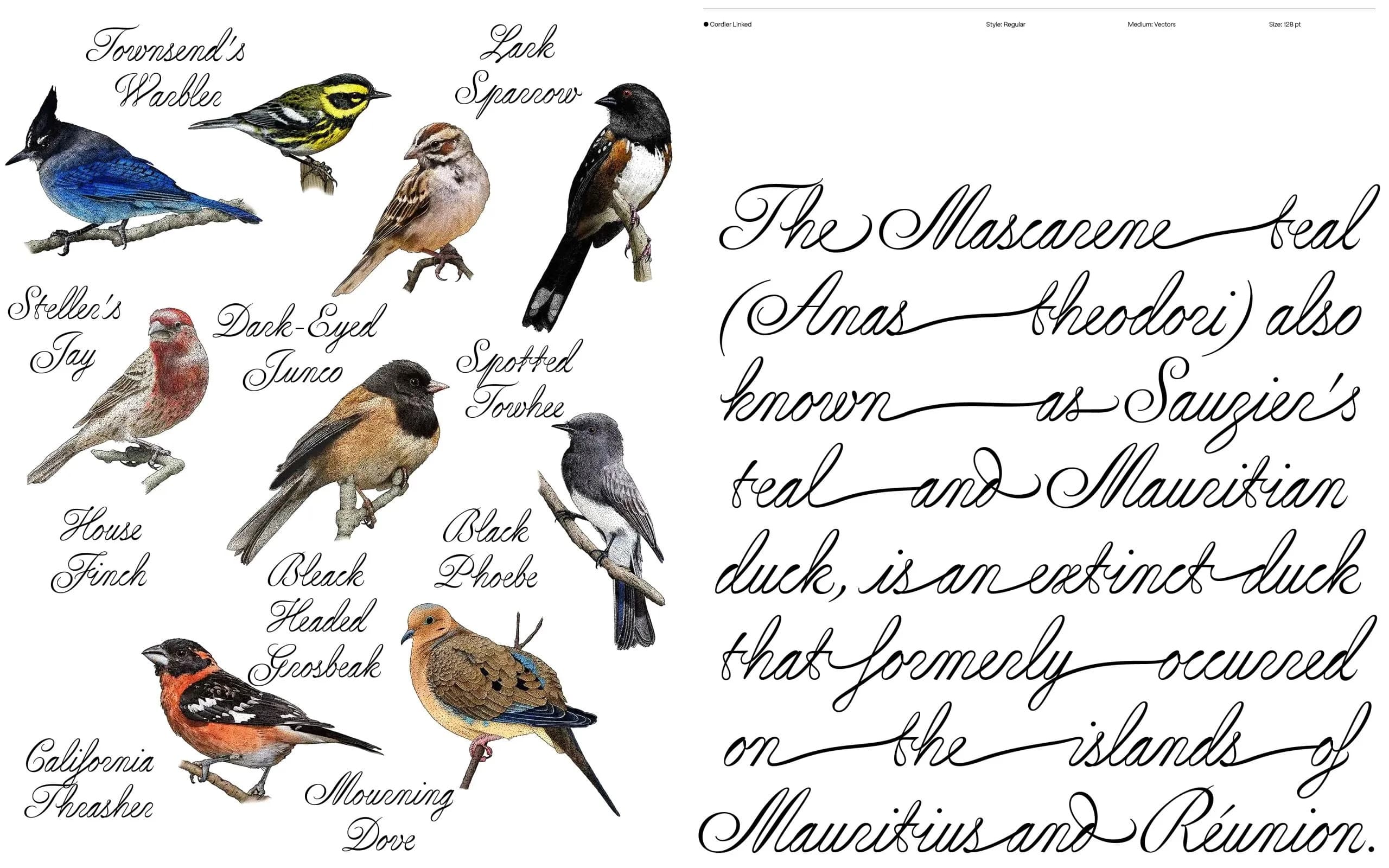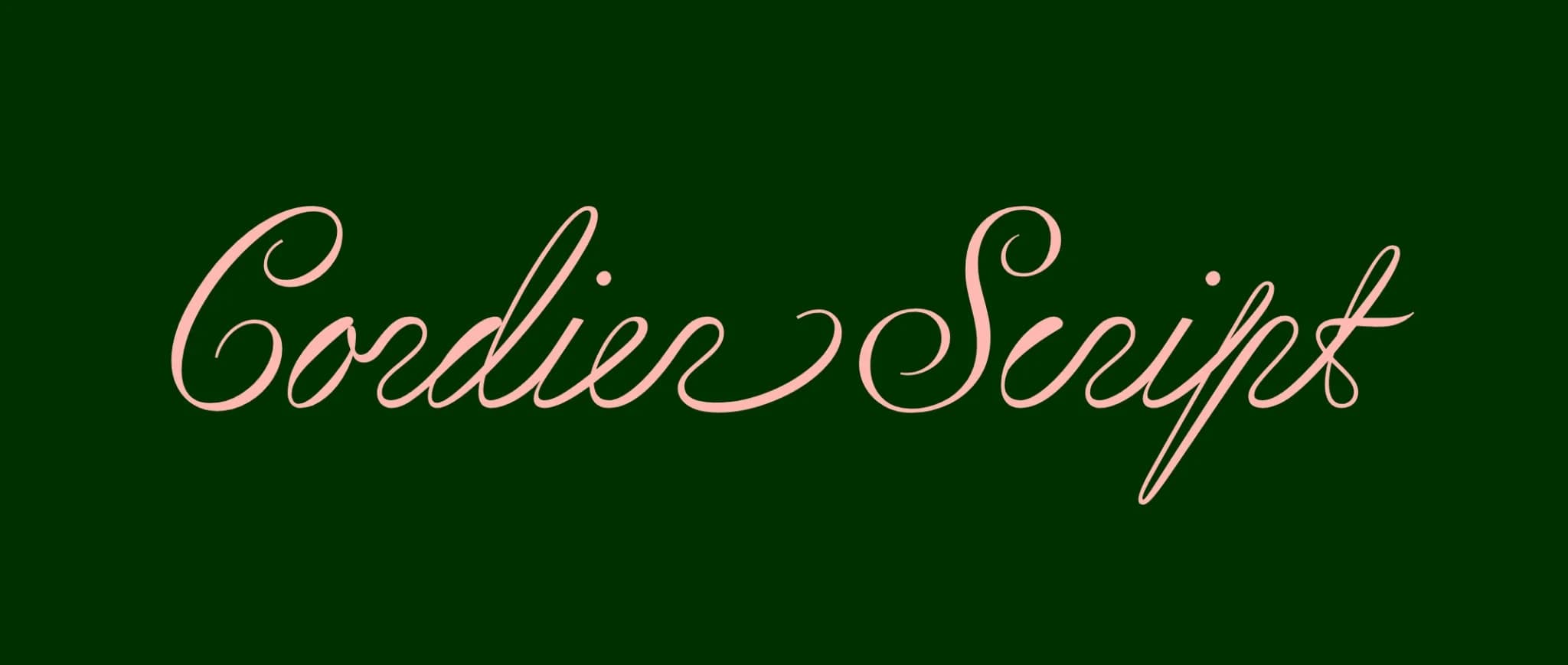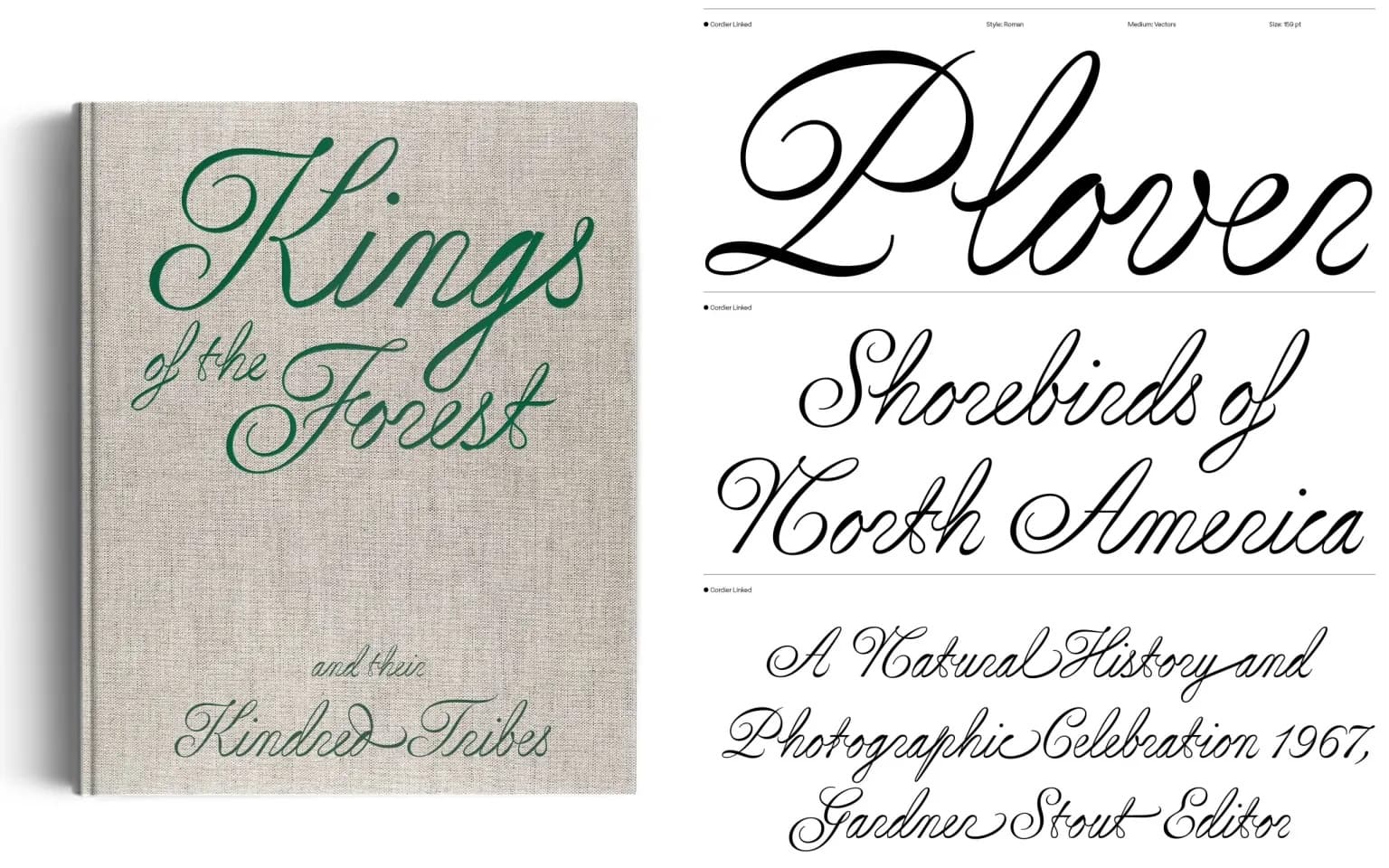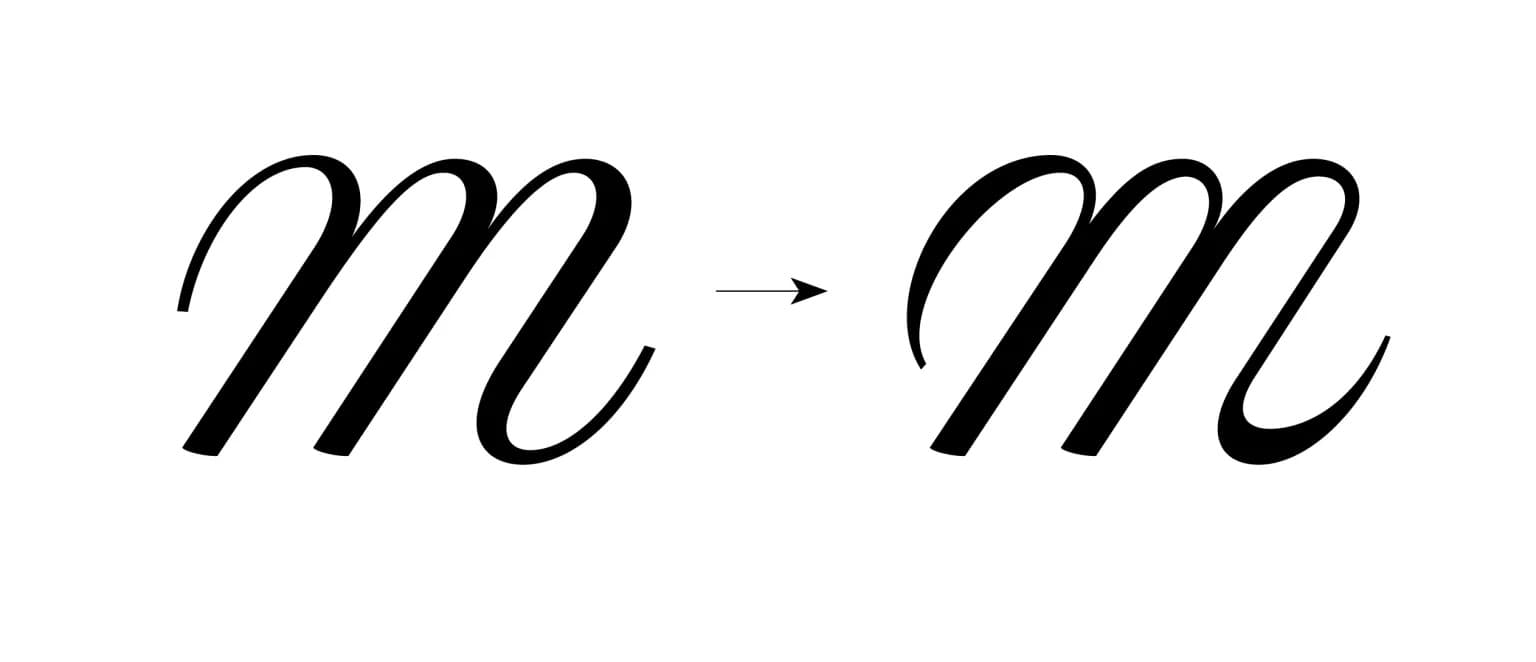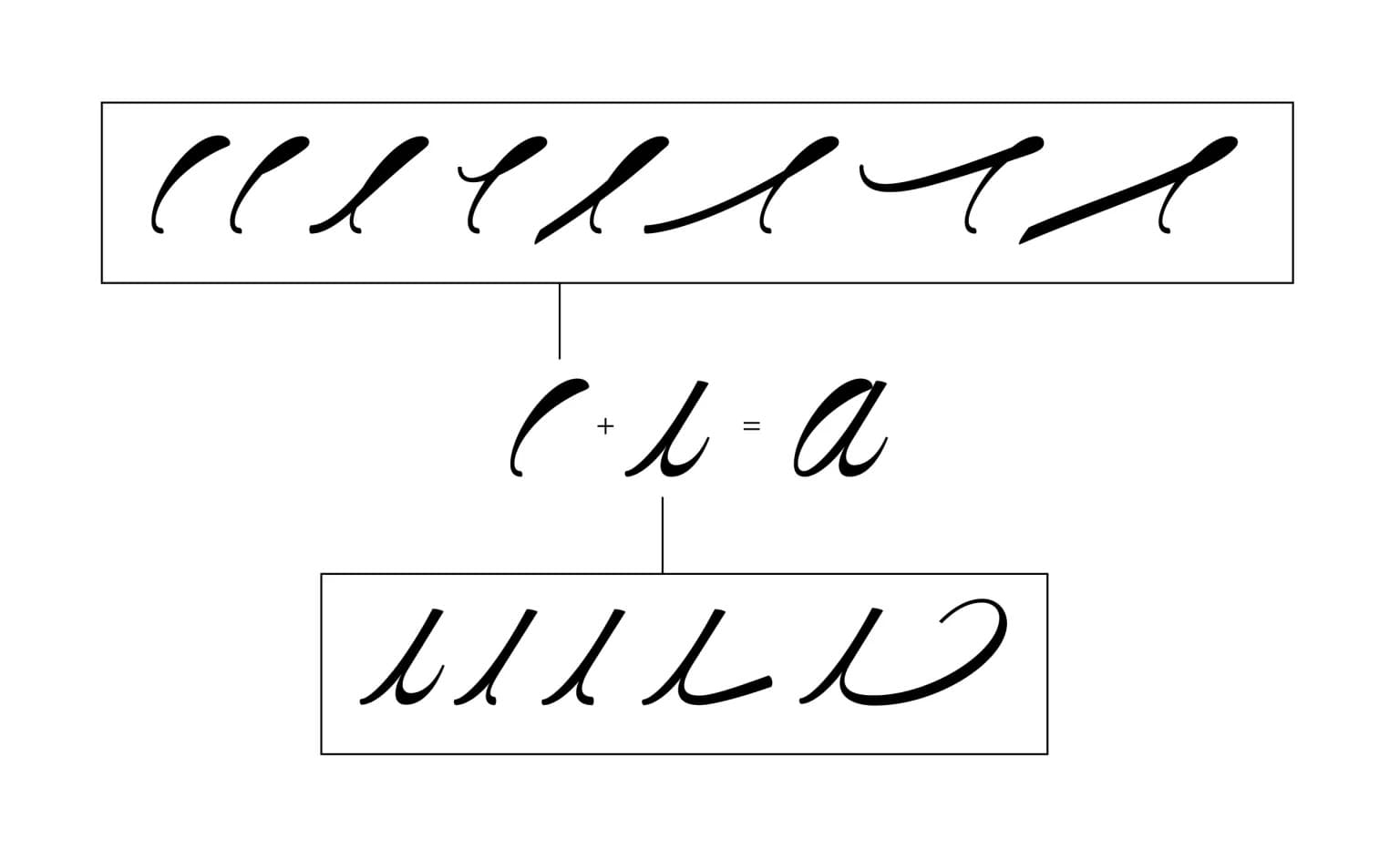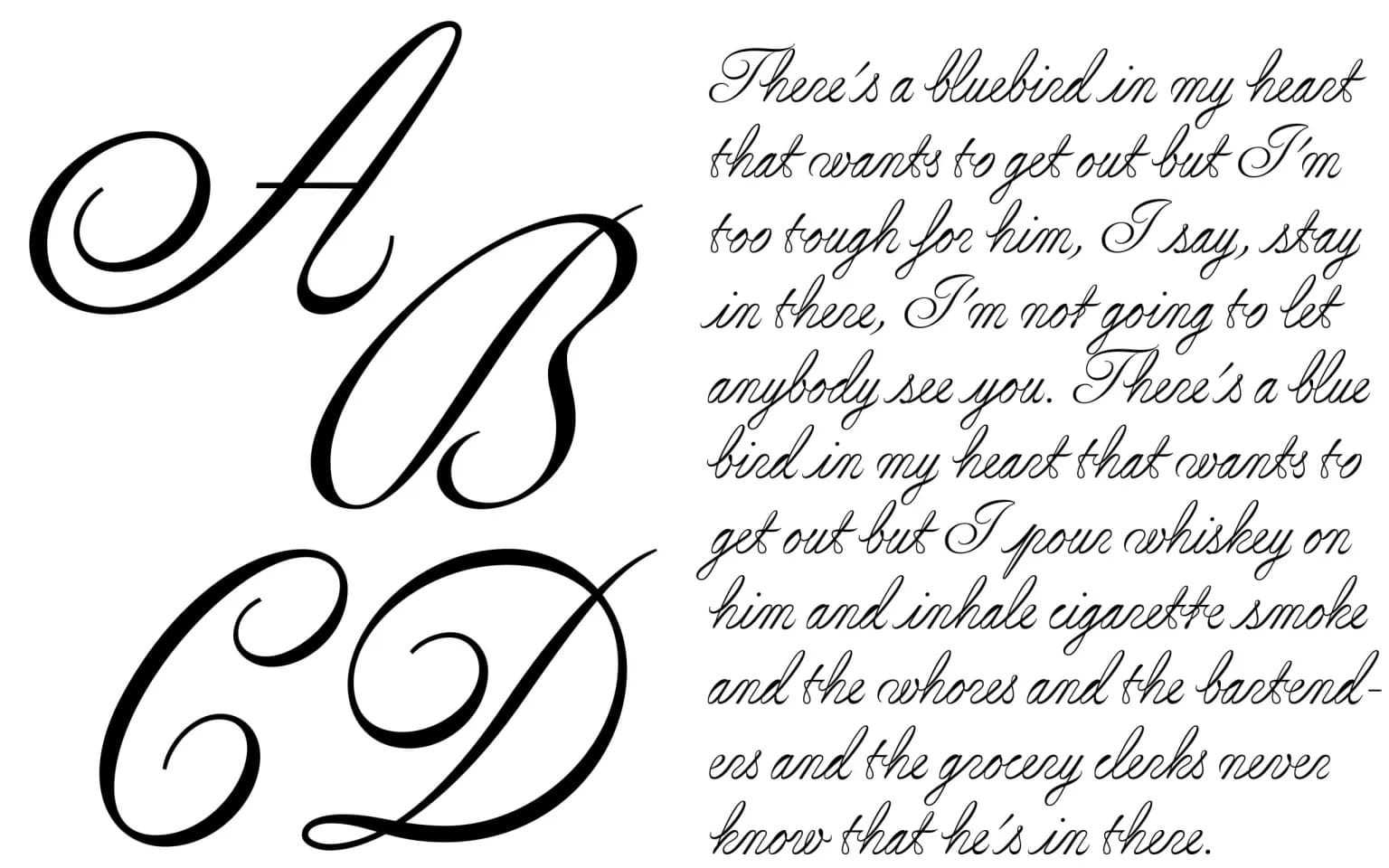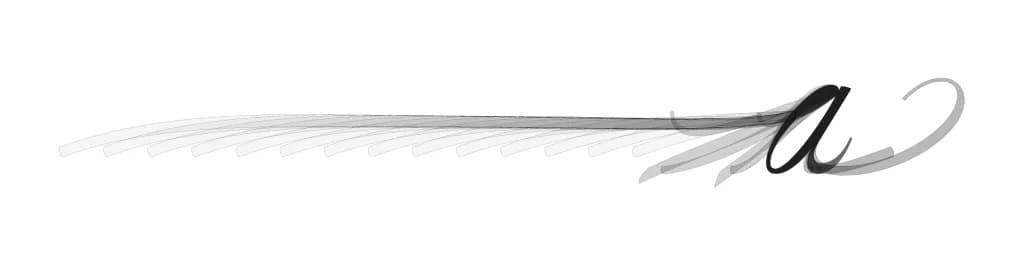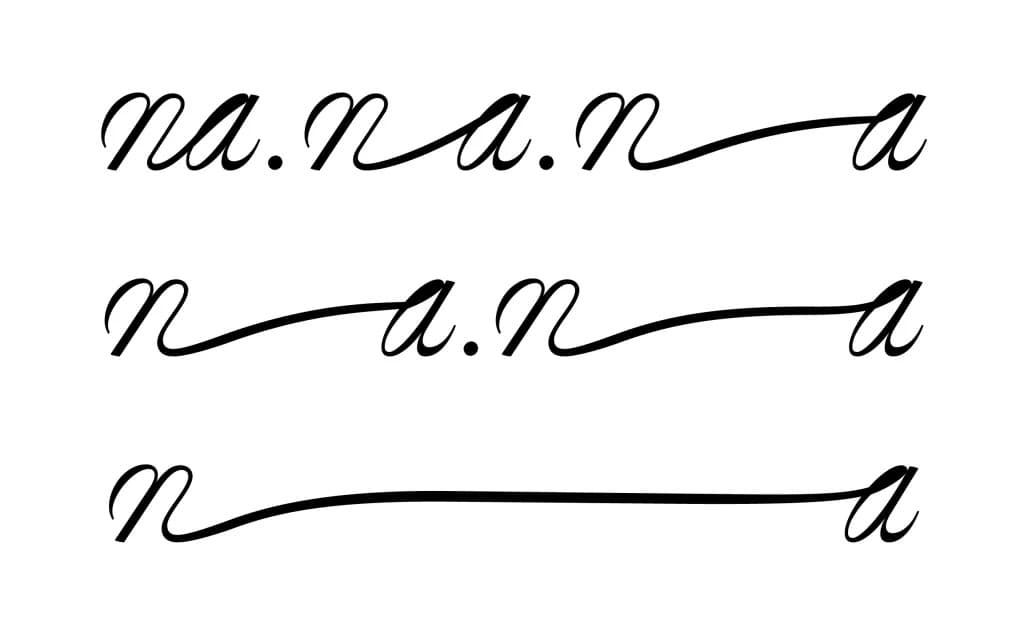
Cordier Script is a Typeface for the Pleasure of the Line
As script typefaces go, Sharp Type‘s Cordier Script hits all the right notes. It is serpentine, graceful, and rhythmic. The letterforms are not so tightly wound as to resemble an elementary school cursive primer — look at that gorgeous capital B! Its quirks give it space and an almost handwritten quality. Like the birds that grace its samples, Cordier Script flutters and dances on screen.
It’s the handwriting I wish I had: elegant but a little left-of-center.
For the pleasure of the line, the pen no longer stops between words, and the whole sentence is formed in a single stroke. - Benjamin Gomez
Designed by Benjamin Gomez, Cordier Script was inspired by the penmanship of Louis Barbedor, a 17th-century French calligrapher. Gomez drew the letterforms from the intricate plates of Barbedor’s 1650 book, Les écritures financière et italienne-bastarde, engraved by Pierre Cordier. The result feels uniquely of this moment and steeped in tradition.
Cordier Script echoes Barbedor’s daring hand—its inverted thick-and-thin strokes sweep diagonally upward, each letter a study in acrobatic finesse. - Sharp Type
Like the calligrapher’s pen, sentences express themselves in one fluid and dynamic stroke. Everything points optimistically to the sky as if it plans to take off.
Gomez says that the inverted thick and thin strokes of this handwriting naturally emphasize the diagonal, “supposing an acrobatic position of the hand.”
Gomez says that he composed Cordier Script of multiple half-letter forms that enable connections between letters at varying heights to reflect handwriting’s natural fluidity.
Gomez drew each letter with various contextual variations, giving the text “suppleness and fluidity.” Cordier Script comes with two styles: linked and regular. Designers can play with long, sinuous lines of text or traditional word breaks.
Cordier Script would work beautifully as a display typeface, yet it also does something special to blocks of editorial text. It is also ideal for animations — even in stillness, Cordier Script has an innate momentum. The two styles come with an impressive range of letter variations, glyphs, OpenType features, and language support that spans the globe.